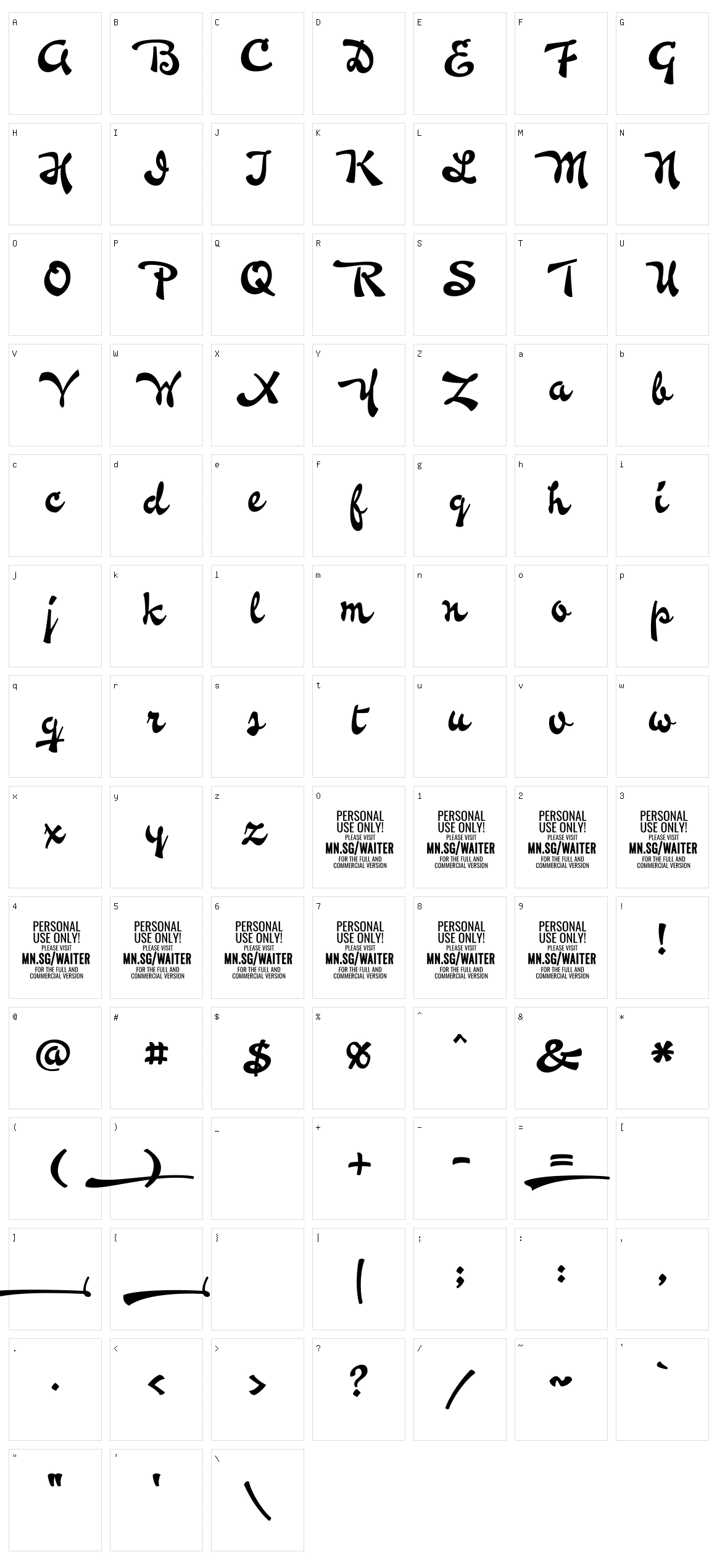
Waiter is a typeface with a genuine old-time style.
The font is created by Måns Grebäck, and contains hundreds of glyphs.
It also has a set of alternate characters, swash alternates as well as final and initial alternates.
Waiter supports hundreds of languages.
Create swashes after the word with _ ( ) { }
Example: Waiter}